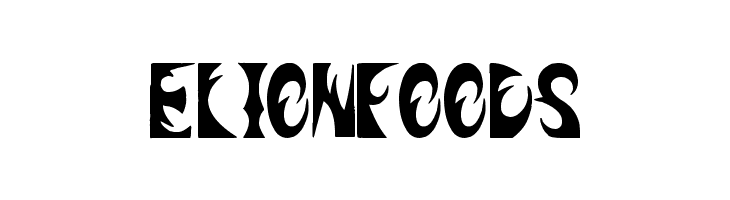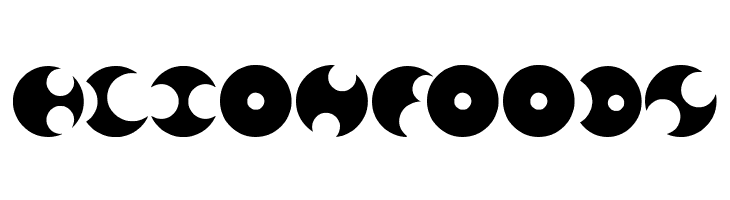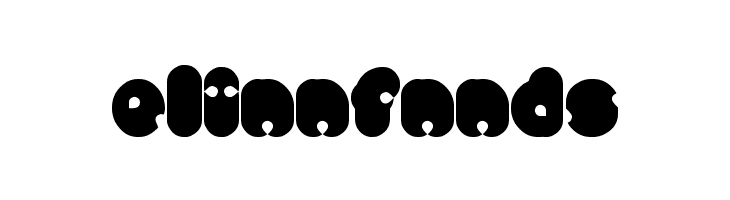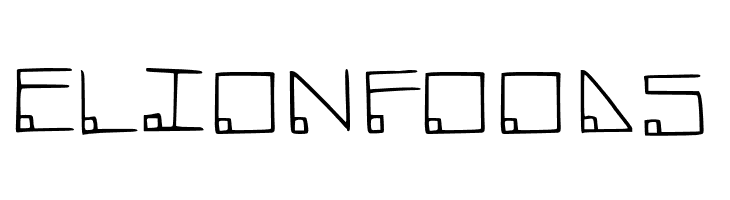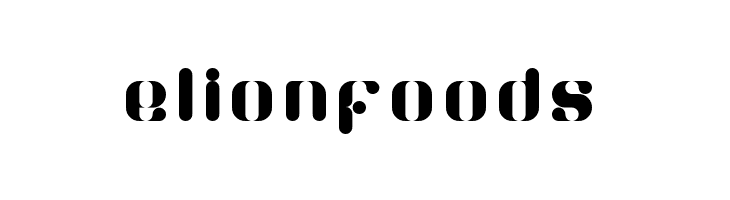
A bold, geometric decorative font with crescent-like cutouts.
A bold, playful font with circular cutouts and a strong visual impact.
A bold, geometric font with circular elements and a modern, playful style.
A bold, geometric font with high contrast and unique cutout designs.
A bold, geometric display font with a retro arcade-inspired style.
A bold, perforated stencil font with a modern industrial aesthetic.
A geometric, futuristic font with a maze-like, angular design.
A bold, modern font with a playful, stencil-like design.